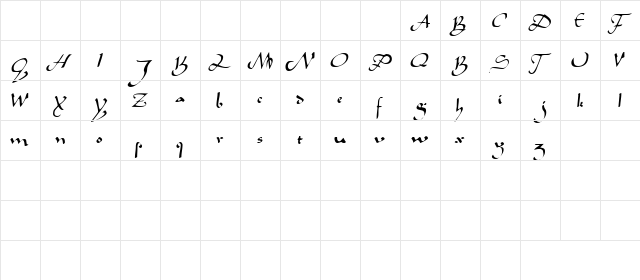
MedinaDisplaySSK Bold
Design Context for MedinaDisplaySSK Typeface
MedinaDisplaySSK is built around its visual character rather than neutral utility — its distinctive forms are designed to make an impression at display sizes. Its bold stroke weight gives it real presence on the page.
Font Pairing: Pair with a clean neutral sans-serif for body copy to let MedinaDisplaySSK's character lead without overwhelming the composition.
Pro Tip: Treat MedinaDisplaySSK as the centrepiece of your typographic hierarchy. One strong heading set in a decorative face can carry an entire layout.